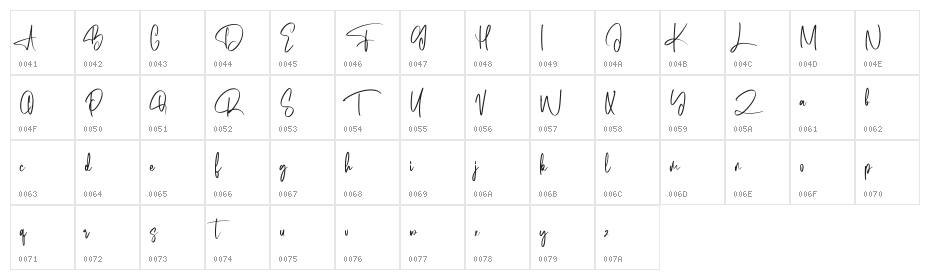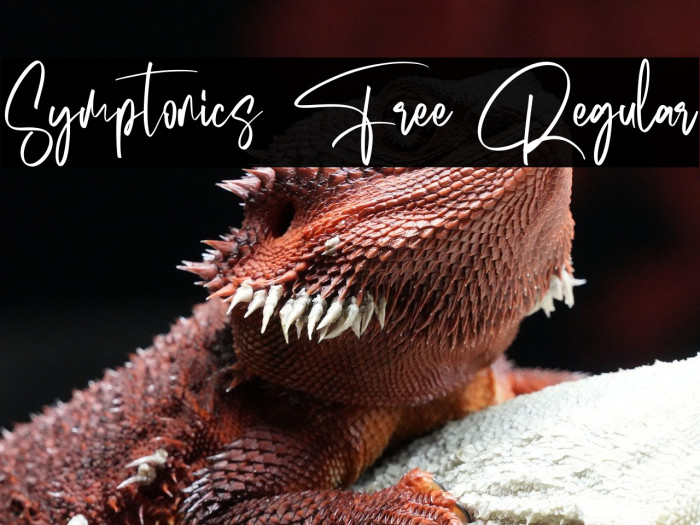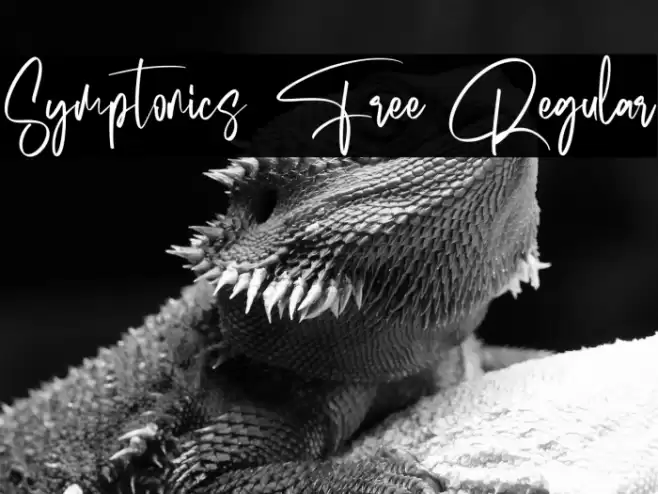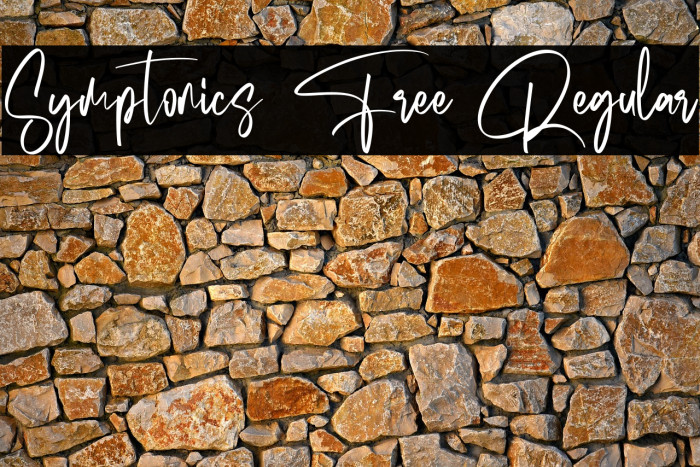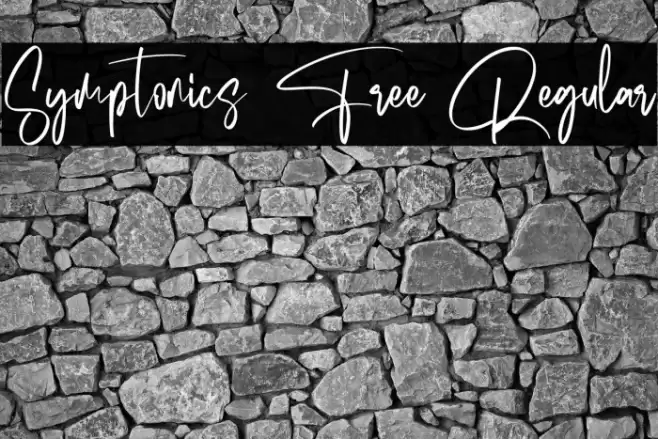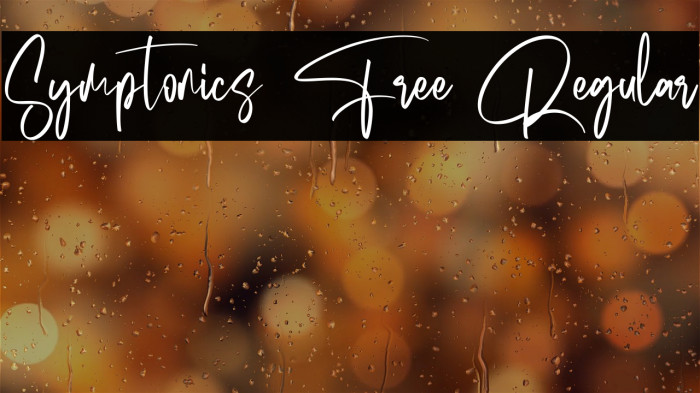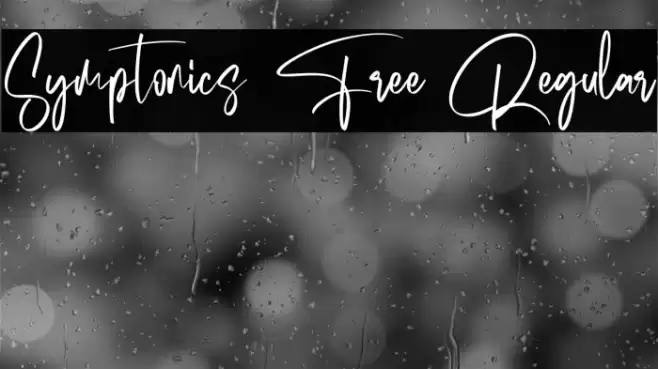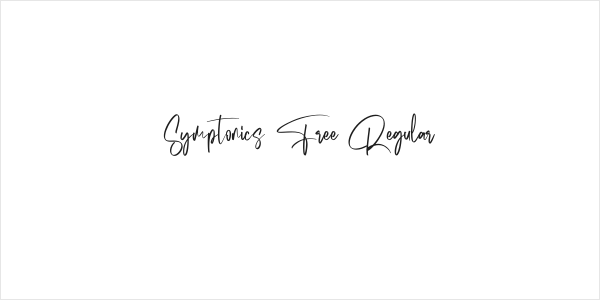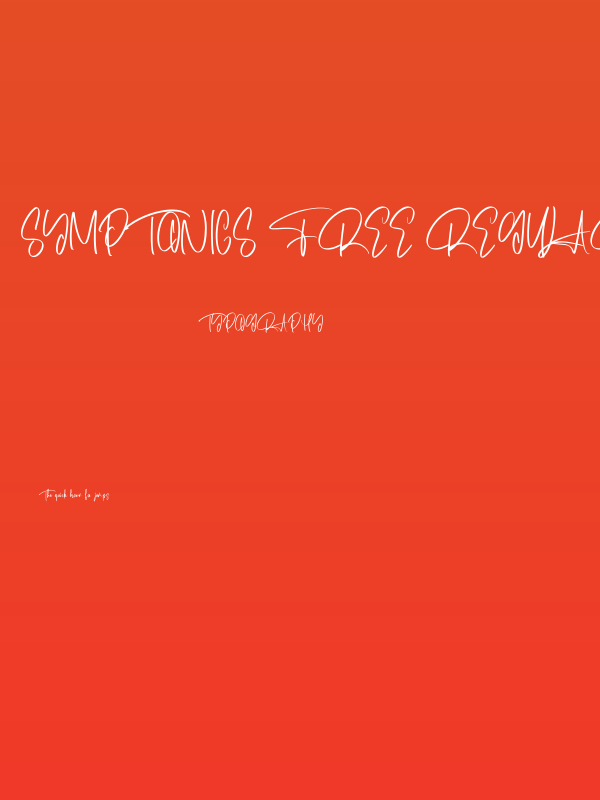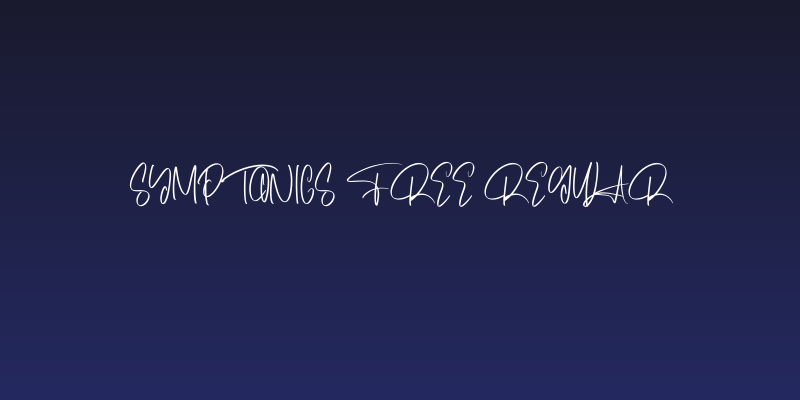
Symptonics Free Regular Font
Symptonics Free Regular Description
This font features an elegant and flowing script style, characterized by its smooth, cursive strokes and artistic flair. The uppercase letters are bold and sweeping, with a distinct loop and curve that adds a sense of movement and grace. The lowercase letters maintain a consistent flow, complementing the uppercase with their delicate and refined appearance. The font's overall aesthetic is both sophisticated and playful, making it versatile for various design applications. The characters are well-spaced, ensuring readability while maintaining an artistic touch.